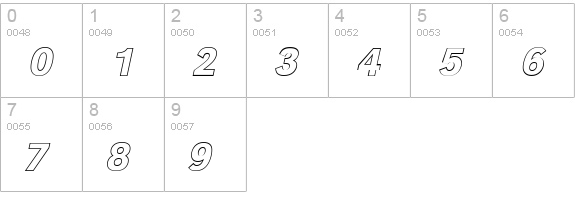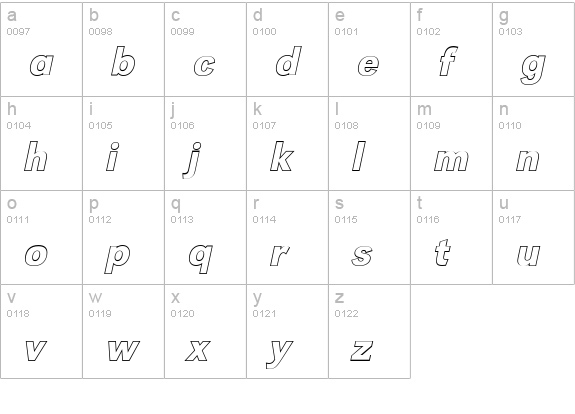
GroteskOu-Medium-Italic is a balanced, medium-weight, italic variant in the GroteskOu typeface family \xE2\x80\x94 well suited to sub-headlines, navigation, and balanced editorial work.
GroteskOu Medium Italic font exudes a perfect balance of modernity and sophistication. Its sleek and stylish design makes it a versatile choice for various design projects, from branding to editorial design. The medium weight and italic slant of this font add a touch of elegance and flair to any text it graces. What sets GroteskOu Medium Italic font apart is not only its exceptional design but also the fact that it is available for free. You can easily download this font at FontsMarket.com, making it accessible to all designers and creatives looking to enhance their projects with a touch of class. Embrace the versatility and beauty of GroteskOu Medium Italic font in your next design endeavor and let your creativity shine.